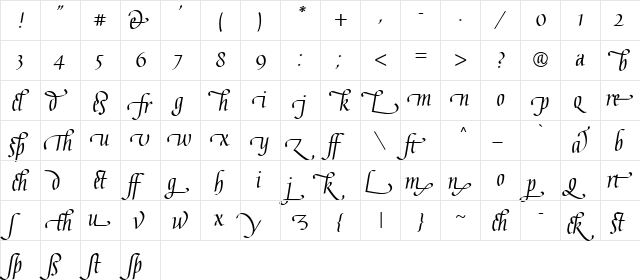
Gaius LT Regular Font Preview
Gaius LT Regular
Gaius LT Regular Font Details
| Foundry | Linotype Library GmbH or its affiliated companies |
Design Context for Gaius LT Typeface
Gaius LT takes a measured approach to typography — its balanced proportions and neutral character make it a reliable workhorse for both digital and print work. The delicate stroke weight brings airiness and refinement to layouts.